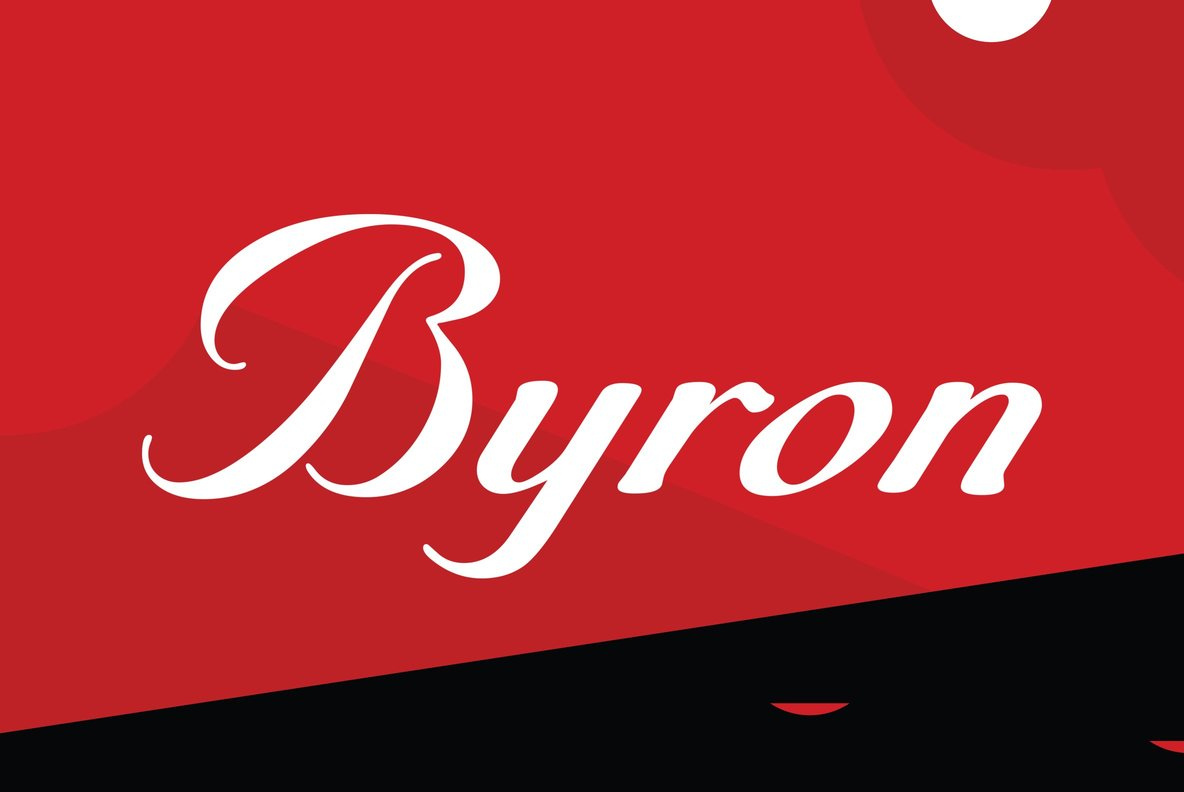
Byron Font
Byron Font is perfect for literary publishing houses, poetry magazine layouts, romantic novel covers, classical bookstore branding, academic literary journals, cultural arts centers, sophisticated library signage, and intellectual event promotions. This eloquent typeface excels in applications where poetic elegance and literary sophistication are essential for creating memorable and culturally rich brand experiences that celebrate the beauty of written language.
What makes Byron Font truly exciting is its magnificent embodiment of Romantic literary tradition and poetic grandeur that captures the passionate eloquence of Lord Byron's era and the timeless beauty of classical literature. The font features graceful letterforms with dramatic flourishes and expressive character details that mirror the emotional intensity of Romantic poetry and the sophisticated elegance of 19th-century literary culture. Its passionate personality and literary character create an immediate sense of artistic depth and intellectual romance that resonates with audiences seeking authentic literary experiences and cultural sophistication. The typeface's Romantic heritage and poetic appeal make it perfect for brands wanting to convey creativity, passion, and connection to the enduring power of literary artistry and intellectual expression.
The Byron Font family includes regular and ornamental versions, complemented by literary alternates and Romantic-inspired decorative elements. The font offers comprehensive character sets with poetic symbols, literary ligatures, and classical styling details that enhance its sophisticated aesthetic. Additional graphic elements including quill flourishes, manuscript motifs, literary ornaments, and Romantic patterns provide designers with complete branding tools rooted in literary tradition and poetic culture.